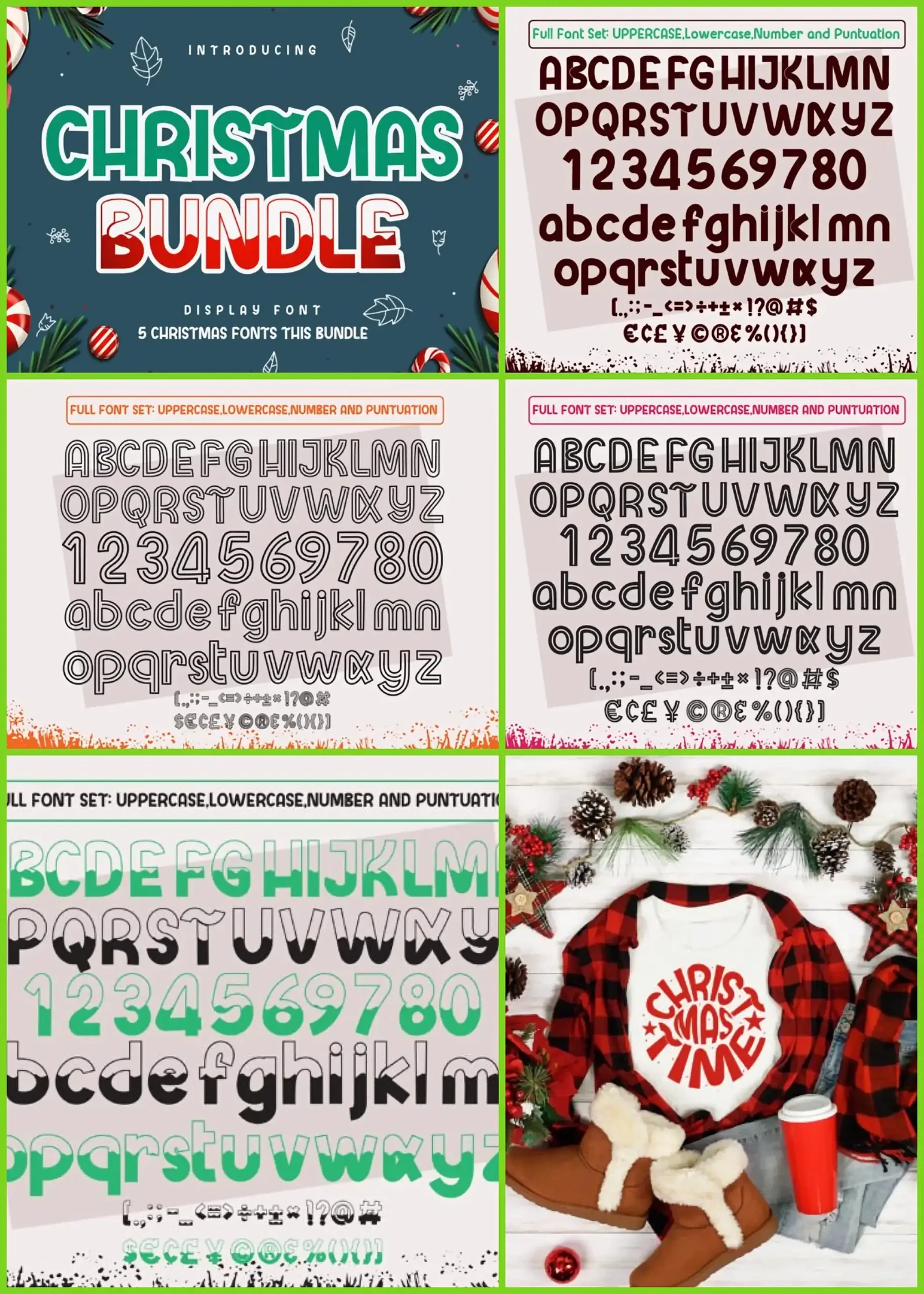
The Christmas Font Bundle brings a festive touch to your holiday projects. Each font has fun curves and Christmas details that capture the joy of the season. Great for cards, shirts, invitations, and more, these fonts ensure eye-catching designs.
The bundle features styles from cute to playful, perfect for crafts and winter branding. Each font is made for clear readability and a festive feel, working well with Canva, Procreate, and Photoshop.
With retro, modern, and kid-friendly styles, these fonts suit Christmas marketing, product packaging, and social media. This set is a great pick for teachers, crafters, and designers wanting cheerful winter fonts to brighten their work.